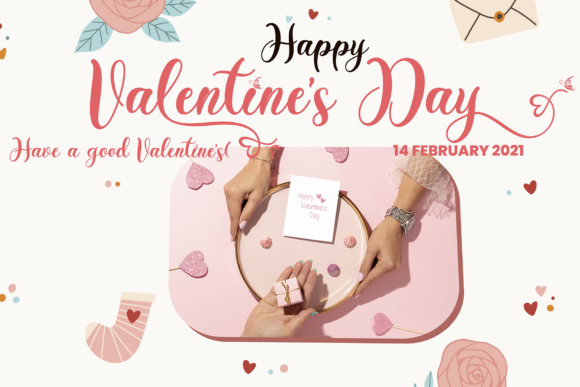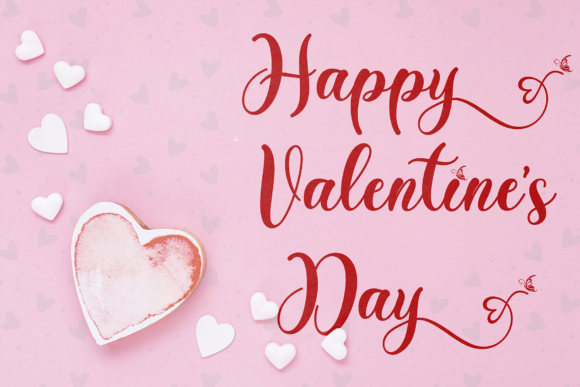
Your Everything Font
db-ku.com - Script & Handwritten -- Your Everything beautiful and romantic calligraphy font. It is decorated with a unique and attractive heart on each character. This font is PUA encoded which means you can access all of the glyphs and swashes with ease!